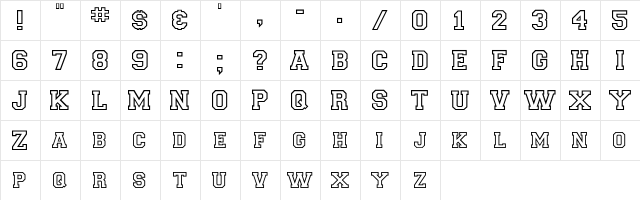
CollegiateOutlineFLF Regular
Design Context for CollegiateOutlineFLF Typeface
CollegiateOutlineFLF is built around its visual character rather than neutral utility — its distinctive forms are designed to make an impression at display sizes.
Font Pairing: Pair with a clean neutral sans-serif for body copy to let CollegiateOutlineFLF's character lead without overwhelming the composition.
Pro Tip: Treat CollegiateOutlineFLF as the centrepiece of your typographic hierarchy. One strong heading set in a decorative face can carry an entire layout.